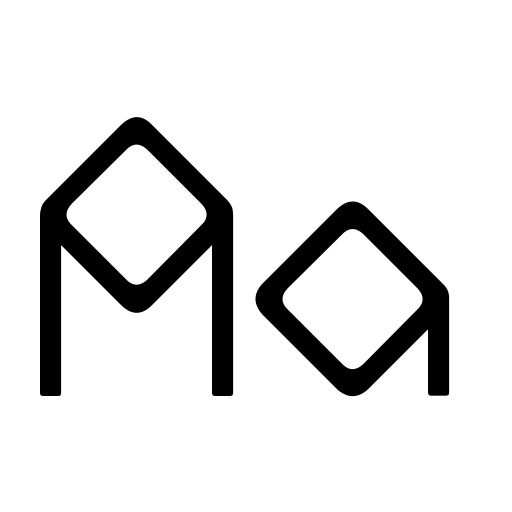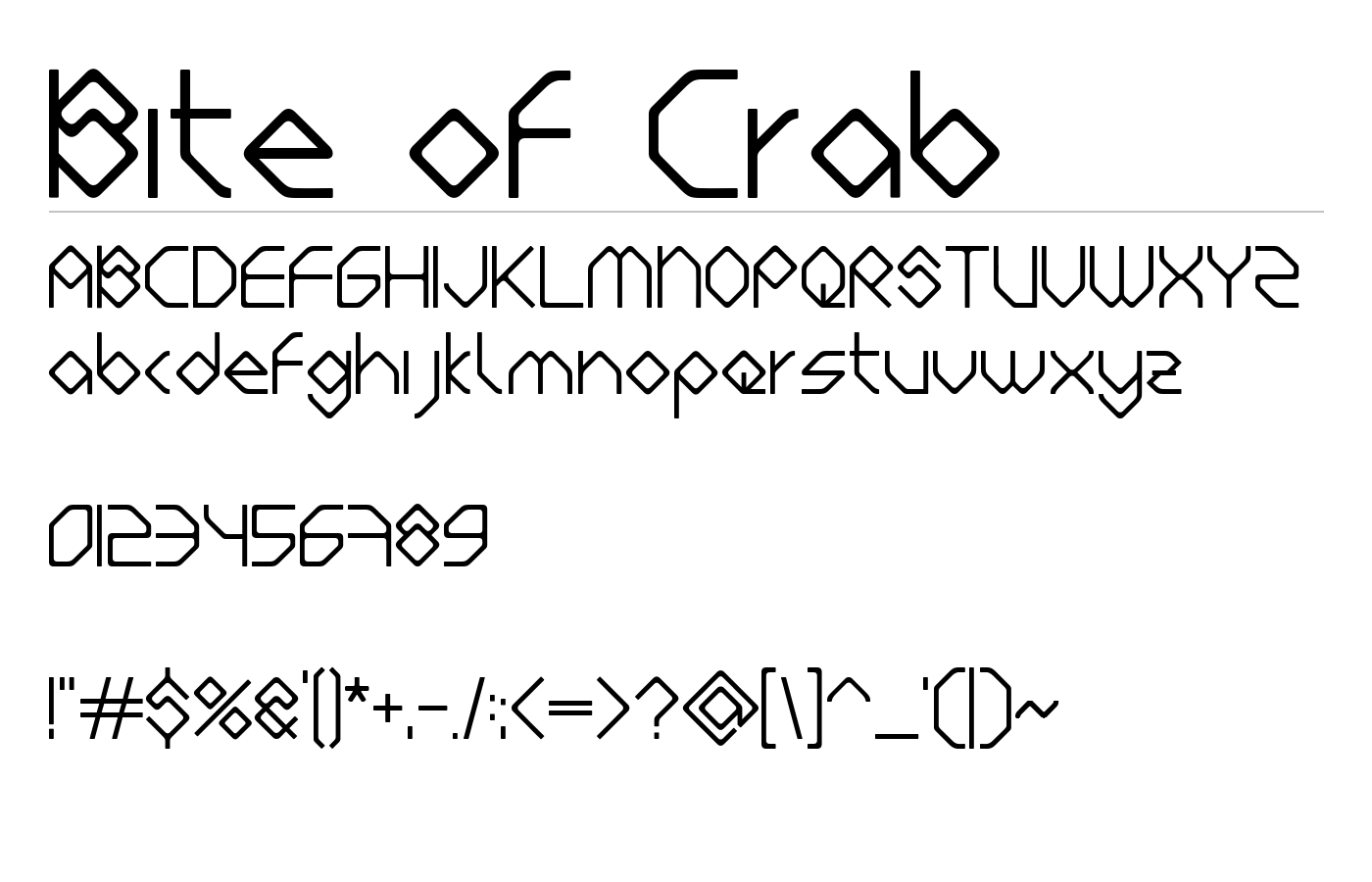
Bite of Crab is a distinctive, geometric sans serif font characterized by its angular, almost futuristic letterforms with a consistent light weight and narrow width. Its unique, sharp-edged shapes and rhythmic line connections give it a modern and tech-inspired personality, making it ideal for creative projects, logos, and headlines that seek a cutting-edge, playful yet clean look. This font works best where a standout, contemporary style is needed without sacrificing readability.
Bite of Crab Font
About Bite of Crab Font